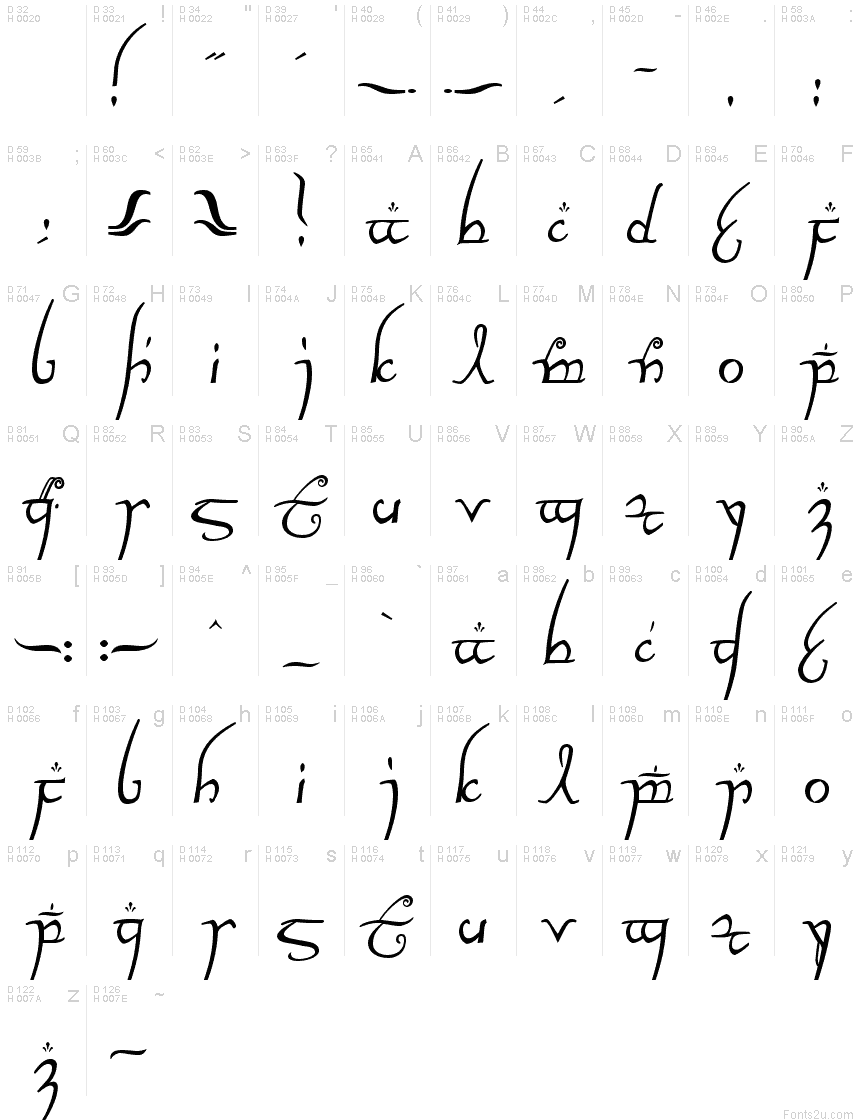
Elvish Ring NFI
Elvish Ring NFI font by Thomas W. Otto - Norfok Inc. is a free curly fantasy typeface that looks like it was scratched onto parchment with a fine, enchanted quill. Its long, tapering strokes and tiny ornamental dots give text a whispery, ancient rhythm, as if every word were part of a spell or secret map. Letters flow into one another with effortless curves, creating an airy, mystical texture even at small sizes.
1.2 / similar onering letters from Peter Jackson's 'Lord of the Rings'